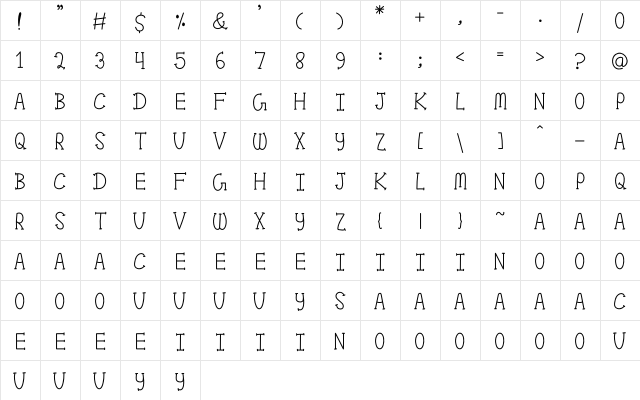
Pom Pom Regular
| Designer | Swapnil Deshpandey |
Design Context for Pom Pom Typeface
Pom Pom is a composed and adaptable typeface that performs quietly and consistently across a wide range of design contexts.